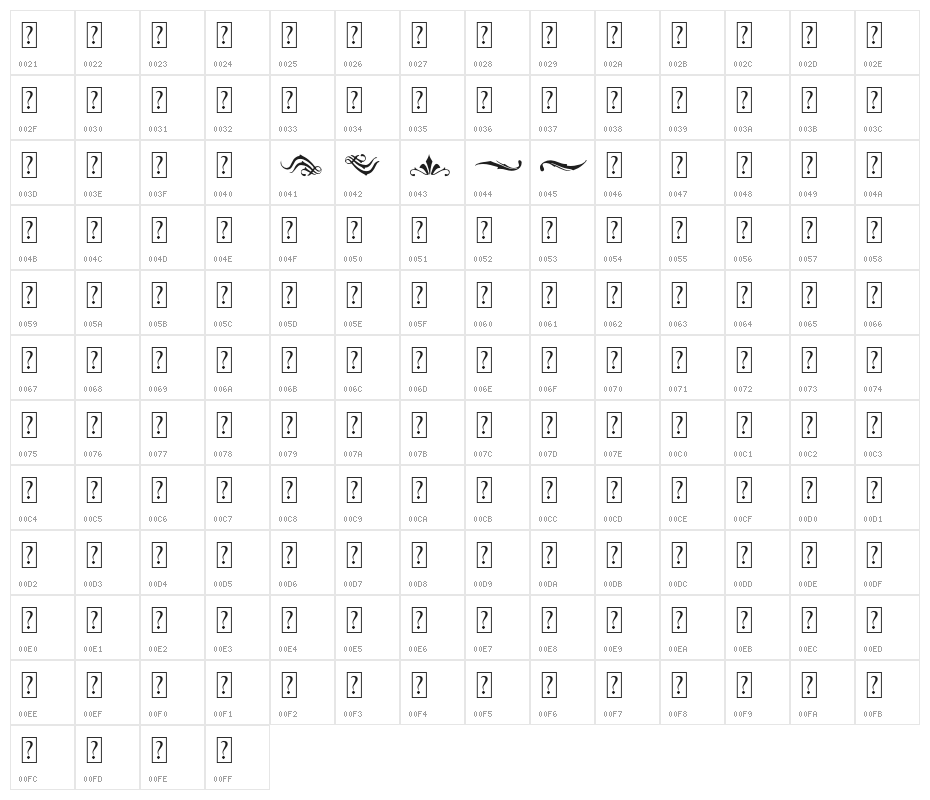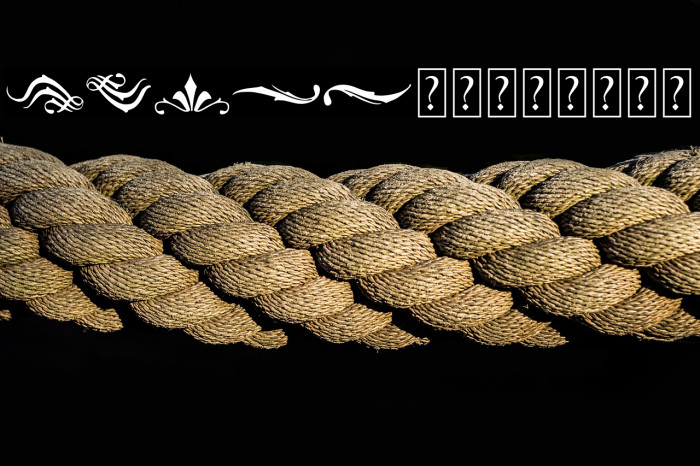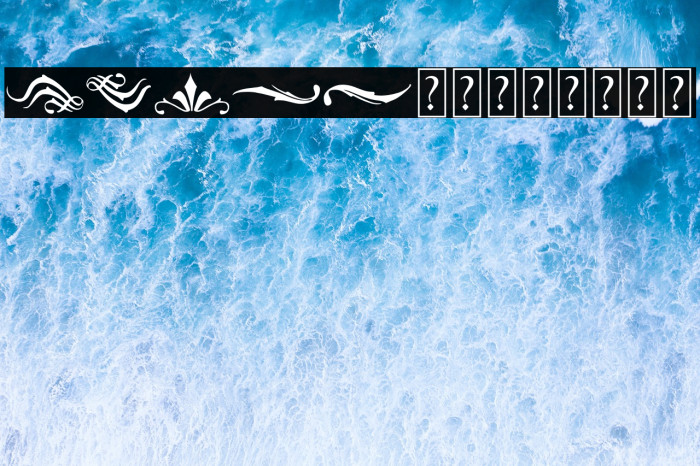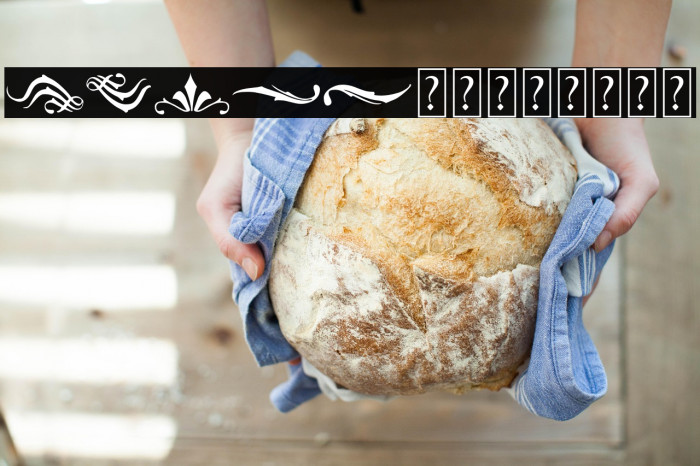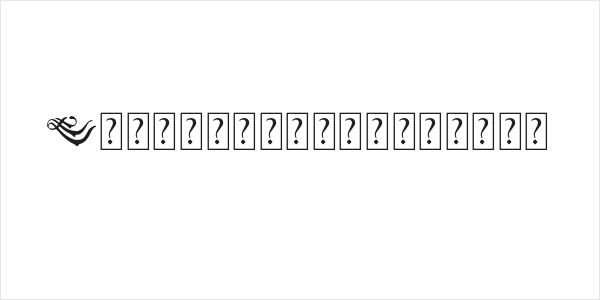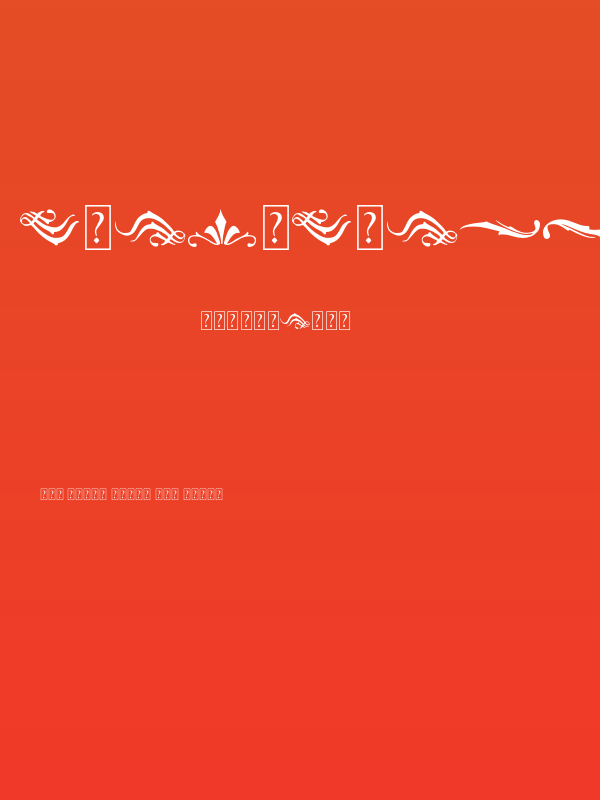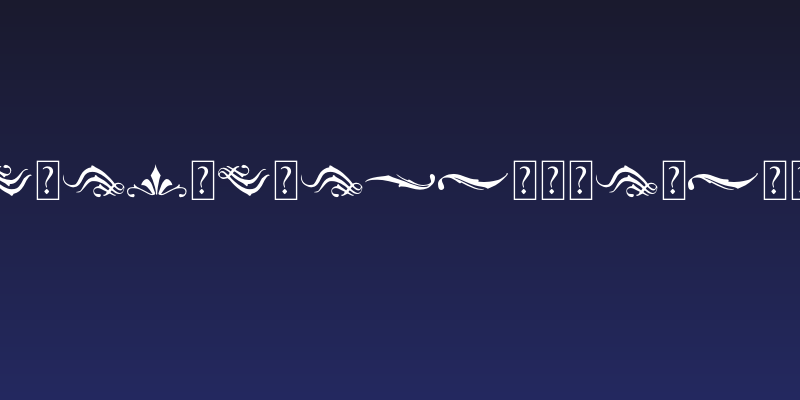
BlackbladeOrnament Font
BlackbladeOrnament Description
This collection features a series of ornamental and decorative elements, characterized by intricate and elegant designs. The elements include flourishes and embellishments that are suitable for enhancing visual compositions. These designs are ideal for adding a touch of sophistication and style to various projects. The set does not include traditional alphanumeric characters but focuses on decorative symbols and motifs.
| Use Case | Decorative elements for artistic and design projects. |
| Proposed Projects | Ideal for use in invitations, certificates, decorative borders, and artistic projects requiring elegant embellishments. |